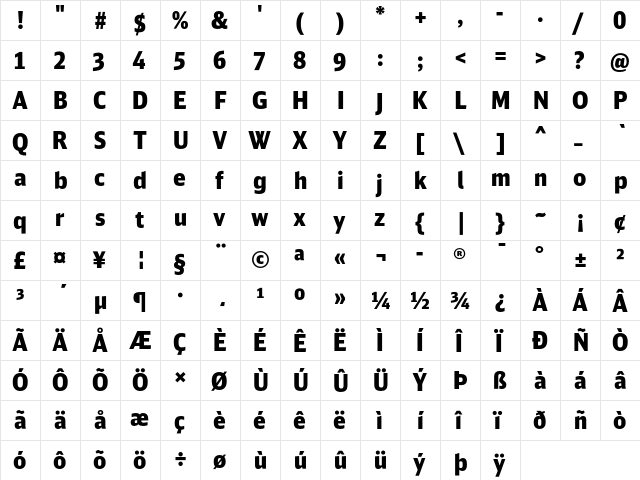
DB Sans Cond Altern Black Font Preview
DB Sans Cond Altern Black
DB Sans Cond Altern Black Font Details
Design Context for DB Sans Cond Altern Typeface
DB Sans Cond Altern is a composed and adaptable typeface that performs quietly and consistently across a wide range of design contexts. Its narrow stance lets it pack a punch even in space-constrained designs.
Pro Tip: Pair DB Sans Cond Altern with a font of contrasting weight or personality to build a more expressive typographic hierarchy.